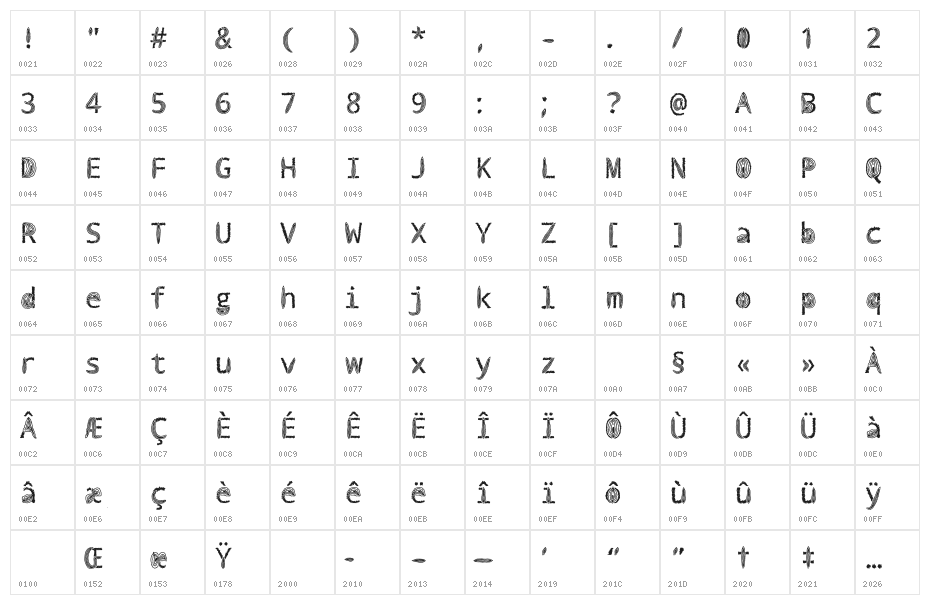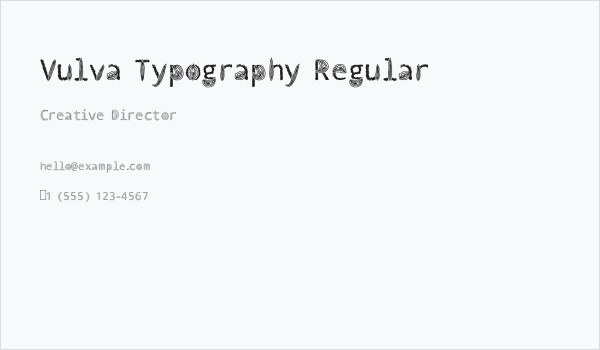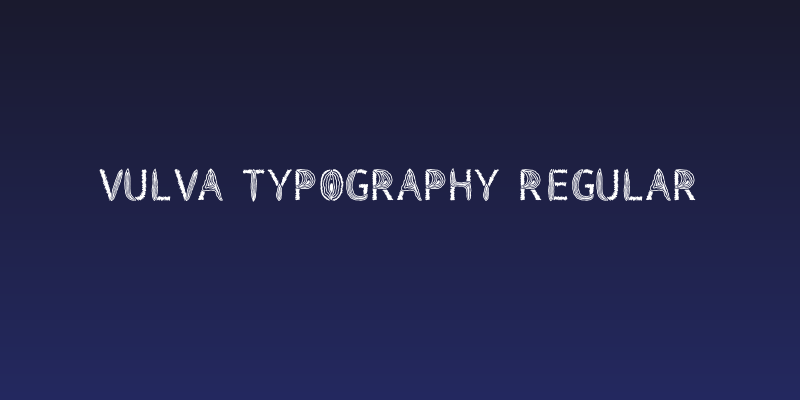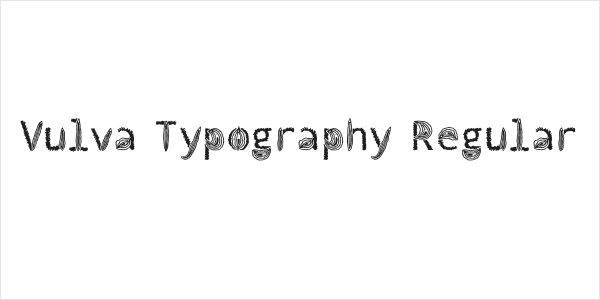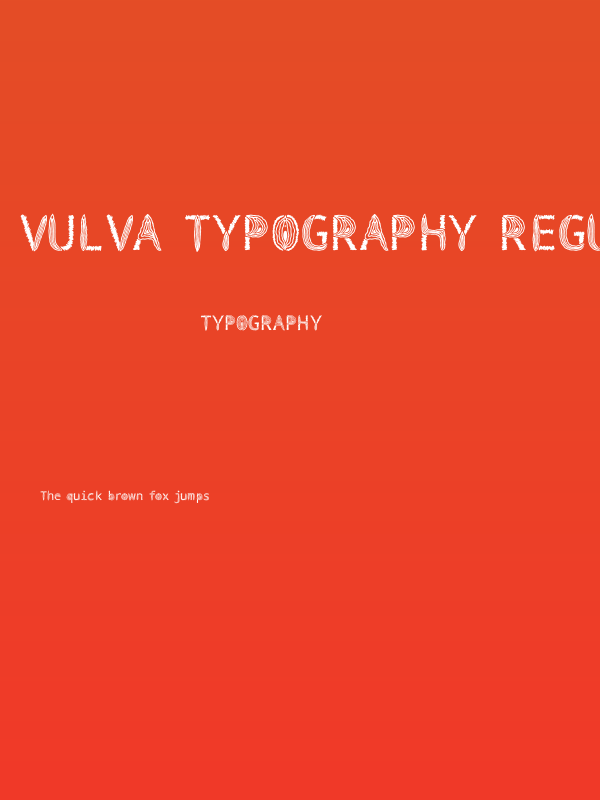
Vulva Typography Regular Font
Vulva Typography Regular Description
This font features a unique, organic design with intricate line work that gives each character a textured, hand-drawn appearance. The letters are composed of multiple overlapping lines that create a sense of depth and movement. This style is consistent across uppercase, lowercase, numbers, and special characters, providing a cohesive look. The font's playful and artistic nature makes it stand out, while its detailed design suggests a handcrafted quality. The characters are bold and have a moderate width, with a slightly irregular spacing that adds to the whimsical feel. The contrast in stroke thickness is medium, contributing to the dynamic visual effect.
| Overall Style | Artistic |
| Use Case | Logos, Posters, Creative Branding |
| Proposed Projects | Ideal for creative projects such as posters, album covers, or branding that seeks a unique, artistic touch. |